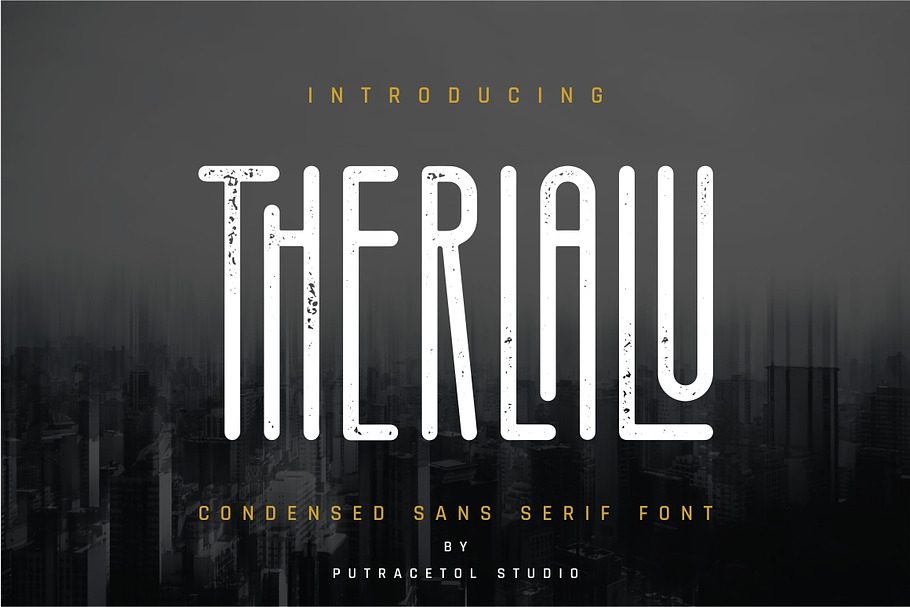
This font is initially designed by steve matteson a typeface designer based in louisville colorado.
Best sans serif fonts for websites. In the print world serif typefaces are almost universally used for setting running body text however on the web sans serifs dominateon lower resolution displays sans serifs tend to display better however higher resolution displays can better handle the fine. The best 10 font combinations. While the computer will try to load the web font montserrat first it will default to arial as the web safe font. While serif is still used primarily for print sans serif is the most widely used font on the web due to its ability to render on screens with lower resolutions.
Sans serif sans serif or gothic fonts are fonts that lack serifs at the end of strokes. Georgia is a charming friendly typeface that is unassuming easy to read and web safe. A classic pair that never goes wrong is a sans serif and serif combination where both typefaces contrast each other in their styles. Devant pro modern sans serif font.
30 sans serif fonts perfect for website headings 1. These are the 10 best sans serif web fonts. Open sans was designed by steve matteson and comes in 10 different styles from light to extra bold. Here are 20 best sans serif fonts for websites.
Sans serif typefaces first originated in the eighteenth century but didnt see widespread use until the nineteenth century. Ace sans sans serif font family. Top 10 sans serif fonts used by web designers in 2020 posted on march 9 2020 by victor tihai in collections in lettering and typography sans serif fonts sans serif gothic or simply sans letterform is one that does not have to extend features called serifs toward the end of strokes. It doesnt compete for attention with the title and it keeps readers moving along the page.
The long list of the best safe web fonts sans serif. Ace sans is a complete family of sans. Normal fonts without serifs arial sans serif. The typeface features a simple bold design with multiple weights which lends itself.
Juxtaposed next to a sans serif title and heading a list apart wisely chose georgia for the body text. The font itself is very simple. The tall and narrow design of this font makes it one of the best fonts you can use to craft bold titles and headings for all kinds of print and digital designs. With more than 600 font families available to browse and choose from the google fonts library is a quick escape into the world of functional as well as aesthetic fonts.
Bebas neue is a pretty popular sans serif font so popular in fact that its creators arent afraid to refer to it as the helvetica of the free fonts and its pretty easy to see why. Montserrat arial sans serif in the code.